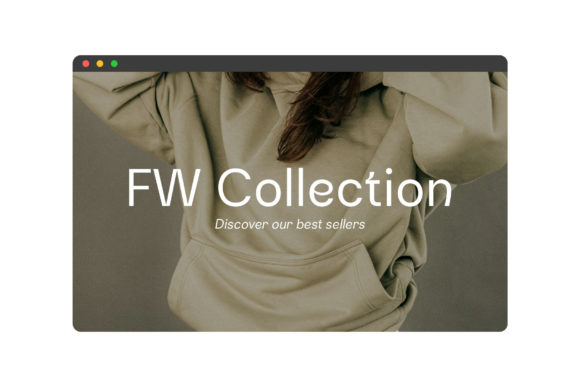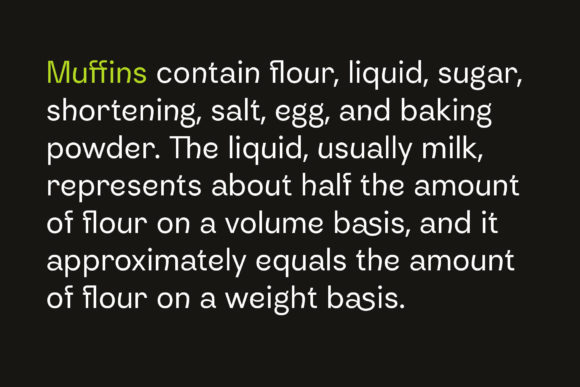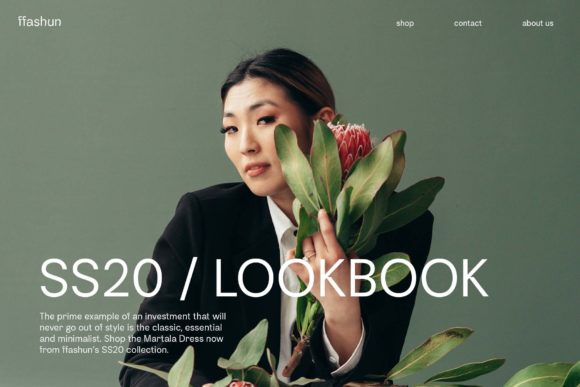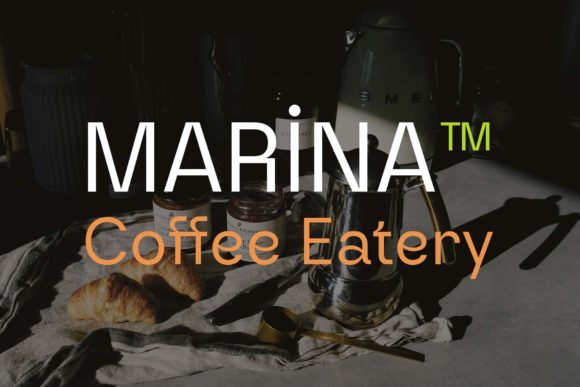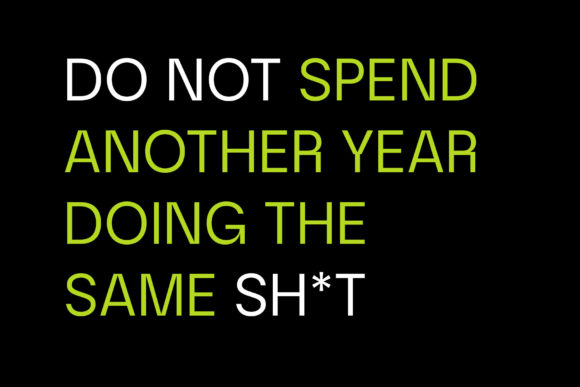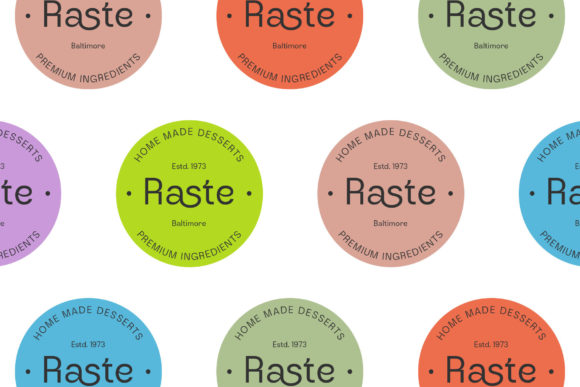
Introduction to Mafinest Font
Have you ever stared at a blank canvas, waiting for inspiration to strike? For designers, this moment is all too familiar. But what if you had the perfect tool to bring your creative project to life? Enter Mafinest Font – a modern grotesk sans serif font designed for display or short text purposes. This versatile typeface is perfect for print materials, from greeting cards to package designs, and even brand identities.
With its unique character, Mafinest Font is a valuable resource for designers looking to add a touch of creativity to their work. Whether you’re working on a DIY project, a book title, or a wedding font, this font is sure to elevate your design. And the best part? It’s available for free download, making it an accessible design resource for creatives of all levels.
Key Features of Mafinest Font
- High-quality, professional font designed for creative projects, ideal for designers and artists.
- Comes with a transparent background, allowing for seamless integration into any design.
- Unique, handcrafted design with a modern twist, perfect for adding a touch of elegance to any creative project.
- Perfect for use in logos, branding materials, and other design elements where a high-quality font is essential.
Honest Review: Mafinest Font
As a designer, I’m always on the lookout for high-quality design resources that can elevate my creative projects. Recently, I had the chance to try out the Mafinest Font, and I’m excited to share my thoughts with you.
What works well: ✨ The Mafinest Font has a unique and modern design that makes it perfect for a wide range of creative projects. The font is highly customizable, allowing you to adjust the size, color, and style to fit your needs. I also appreciate the transparent background, which makes it easy to use in complex designs.
What doesn’t work well: ⚠️ One of the limitations of the Mafinest Font is that it’s not as versatile as some other fonts. While it’s great for modern and sleek designs, it may not be the best choice for more traditional or vintage-inspired projects.
- Limited font styles
- Not suitable for traditional or vintage-inspired designs
Overall impression: The Mafinest Font is a solid addition to any designer’s toolkit. While it may have some limitations, its unique design and high-quality features make it a great choice for modern and creative projects. With a free download available, it’s definitely worth checking out.
Tips for Getting the Most Out of Mafinest Font
To get the most out of the Mafinest Font, experiment with different font sizes, styles, and combinations to create visually appealing designs. Additionally, use the font’s transparent background to create seamless designs and graphics.
The Mafinest Font is commonly used in graphic design, digital art, and creative projects. It is particularly useful for creating logos, icons, and graphics with a modern and sleek look.
Alternatives to Mafinest Font
Montserrat is a popular sans-serif font designed for urban environments. It’s a high-quality font that’s perfect for creative projects, especially those that require a clean and modern aesthetic. You can download it for free and use it for both personal and commercial projects. Montserrat has a transparent background, making it ideal for overlaying text on images. Compared to Mafinest Font, Montserrat has a more geometric and modern feel, making it a great choice for digital products and websites.
Open Sans is a clean and modern sans-serif font that’s highly legible even at small font sizes. It’s a versatile font that’s suitable for a wide range of creative projects, from brochures to presentations. Open Sans is available for free download and has a transparent background, making it easy to use in design projects. Compared to Mafinest Font, Open Sans has a more neutral and minimalist feel, making it a great choice for projects that require a simple and elegant aesthetic.
What is the recommended font size for the Mafinest Font?
The recommended font size for the Mafinest Font varies depending on the specific design application and the intended use of the font. However, as a general guideline, we recommend using the font at a minimum size of 24 points for optimal legibility. This ensures that the font remains clear and readable, even when used in large designs or on various devices.